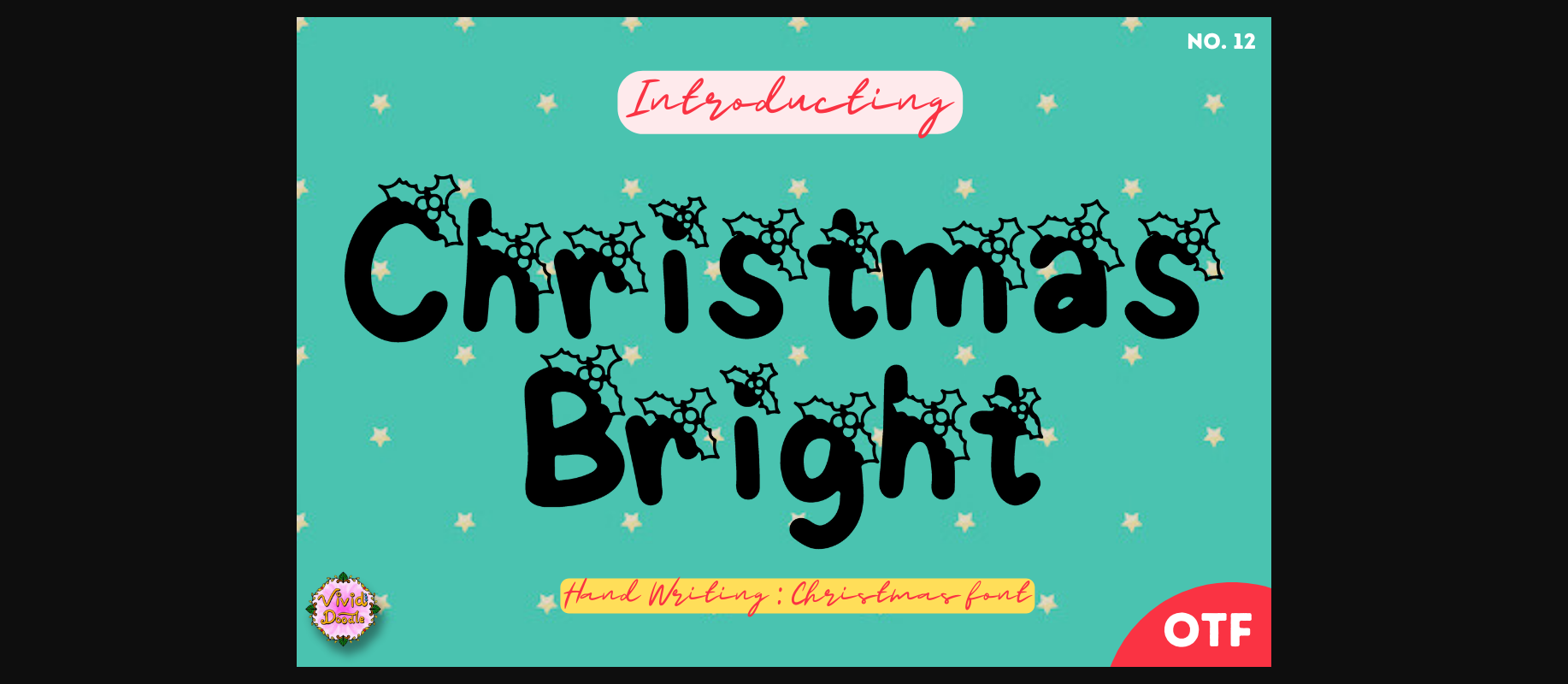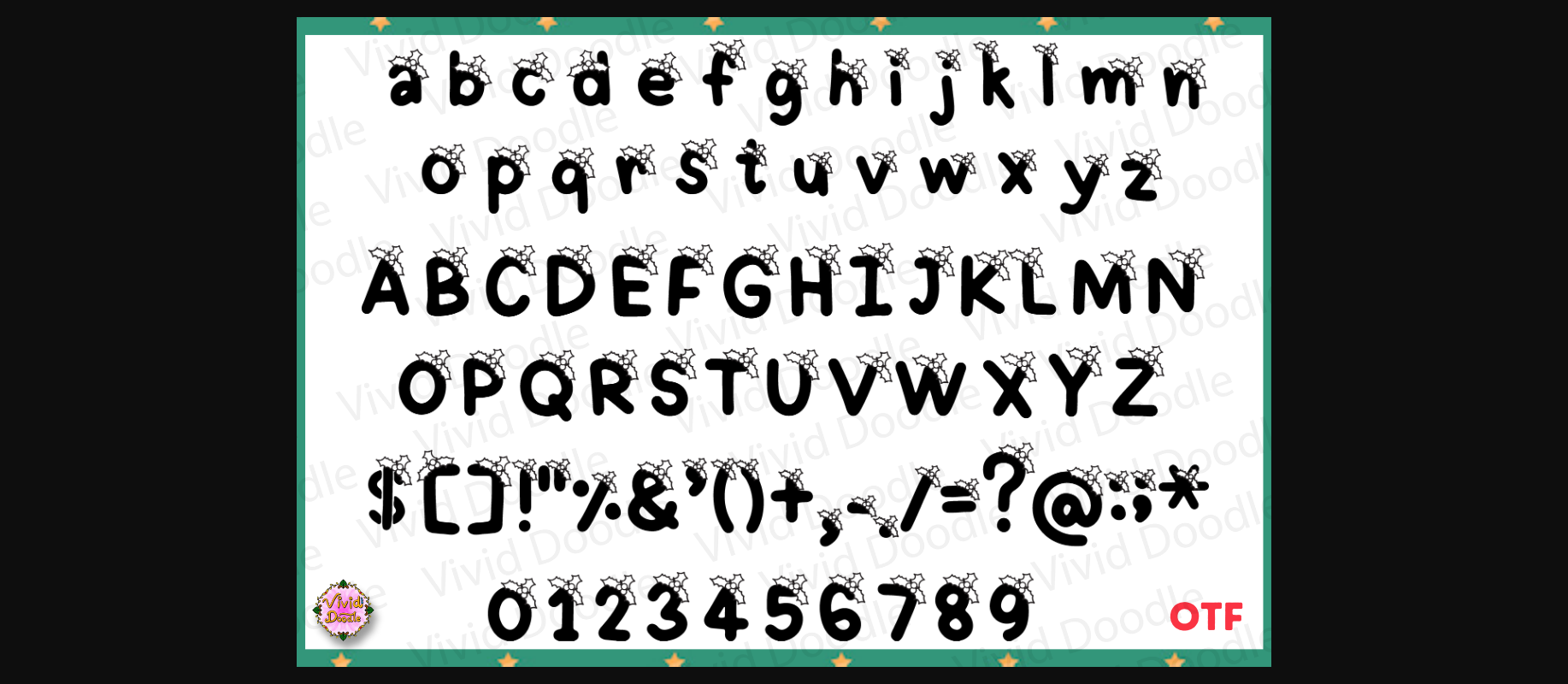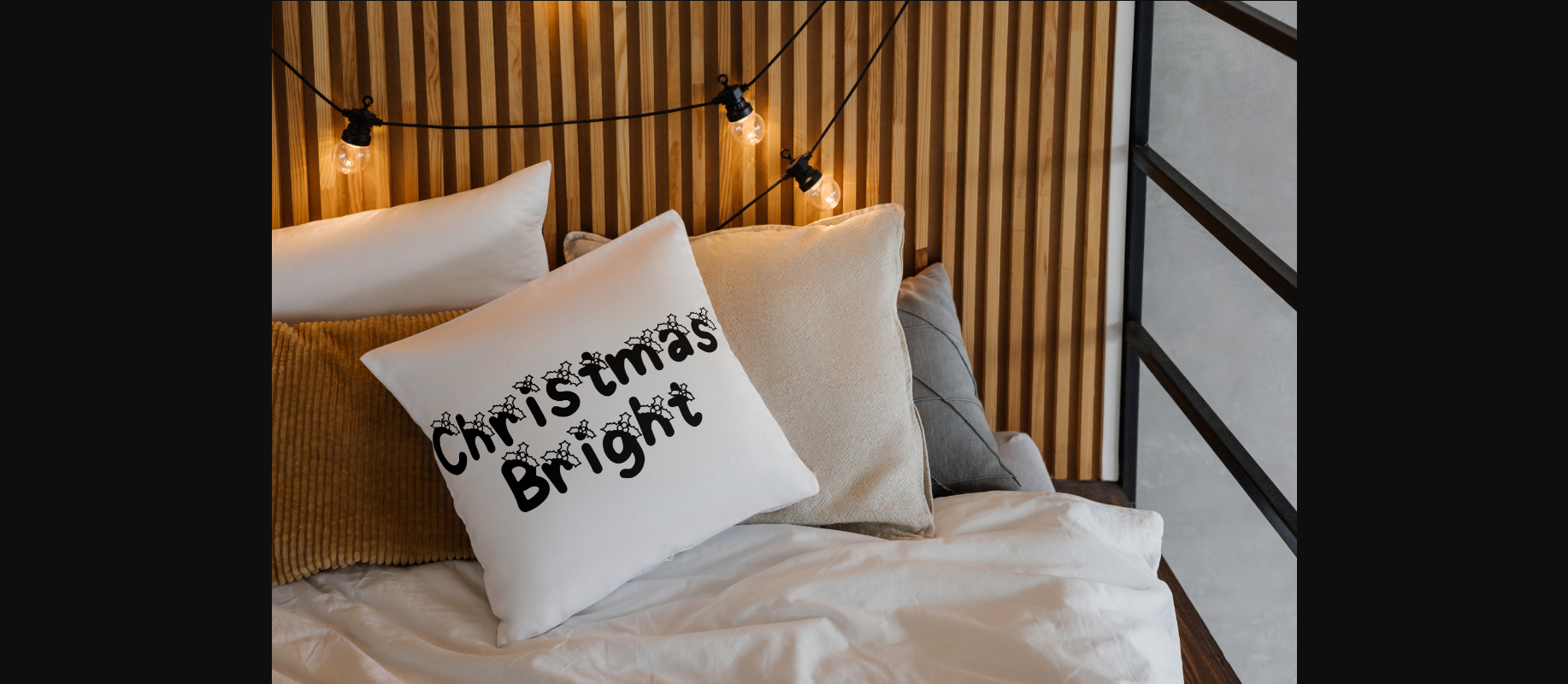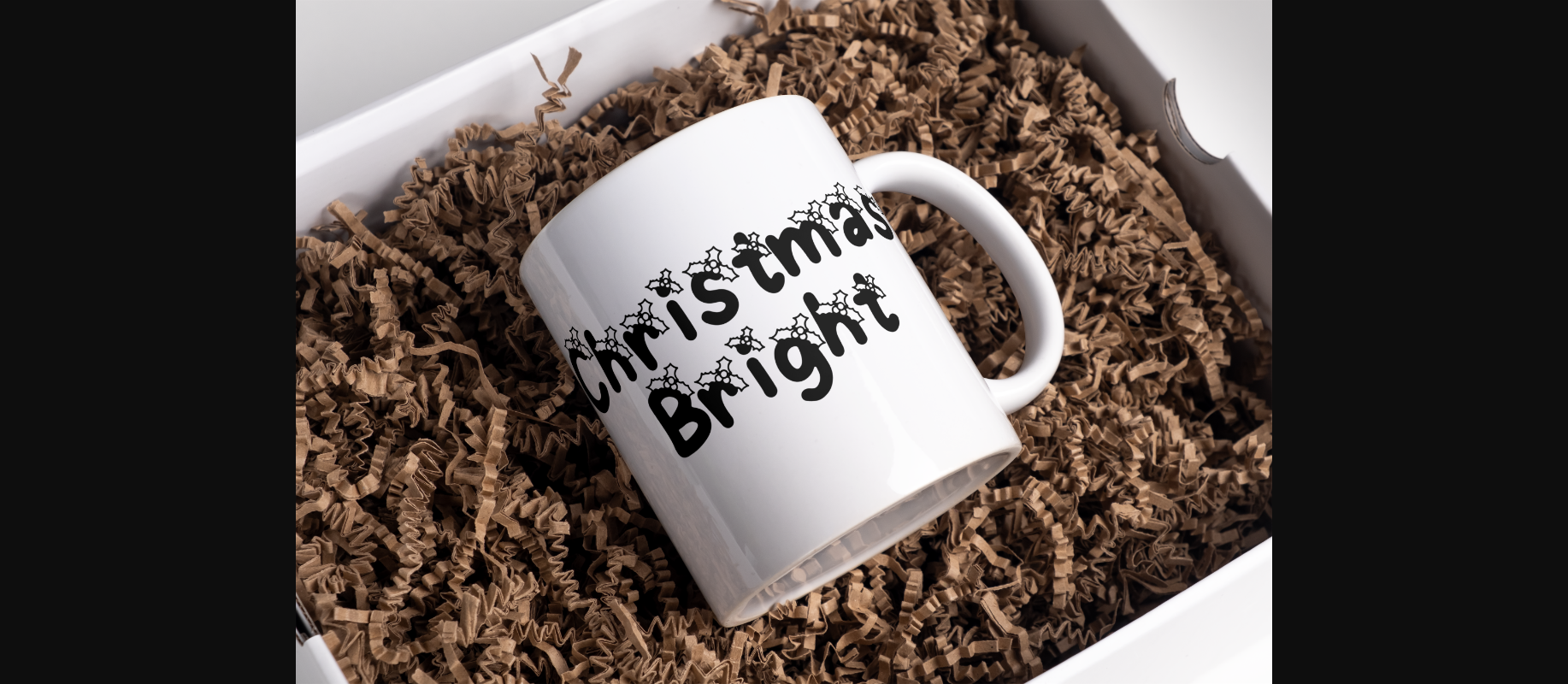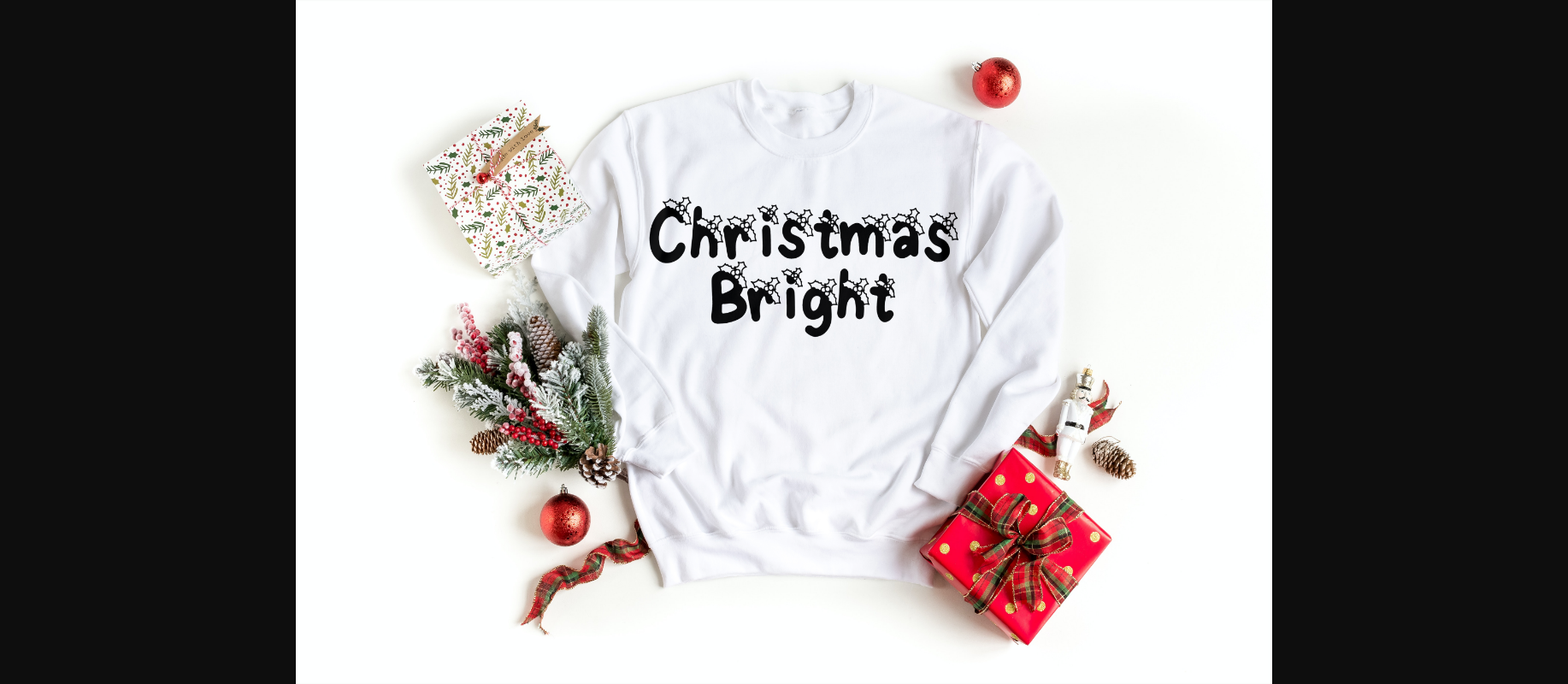
Christmas Bright 12 Font
About Christmas Bright 12 Font
Experience the merriment of the season with our unique hand-lettered font, radiating festive cheer! Dive into the holiday spirit with this newly crafted font, thoughtfully designed to imbue your creations with the warm joy of the festive season. Get ready to enhance your projects with this adaptable, enchanting, and exclusive font, specially created for the holiday season but versatile enough to elevate any endeavor.